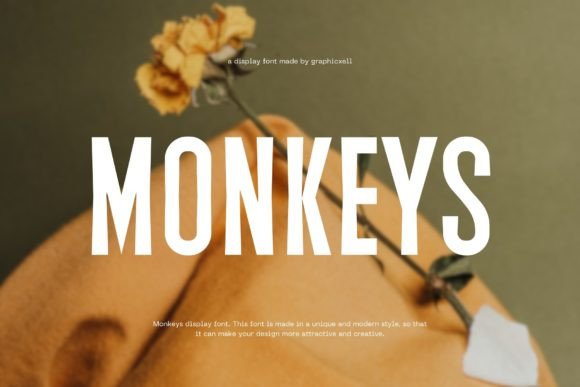
Step into a world where words dance gracefully, where letters intertwine in a symphony of elegance. Meet Monkeys Font, a display font that embodies the essence of sophistication and clarity. With its crisp and well-defined letterforms, Monkeys Font exudes a sleek and modern charm, captivating your audience with its undeniable allure.
Unleash the power of simplicity, as Monkeys Font's straightforward design lends itself effortlessly to a myriad of creative endeavors. Whether you're crafting captivating headlines, designing eye-catching titles, or expressing your thoughts in a striking manner, Monkeys Font is your trusted companion, guiding you towards design excellence.
Experience the versatility of a font that adapts seamlessly to your creative vision. From formal invitations to playful greeting cards, from elegant posters to vibrant social media graphics, Monkeys Font becomes an integral part of your artistic expression, adding a touch of class to every project you undertake.
Dive into the realm of card design, where Monkeys Font reigns supreme. Its clean lines and distinct character bring forth a sense of luxury and refinement, making your cards stand out from the ordinary. Let Monkeys Font elevate your designs, transforming them into masterpieces that leave a lasting impression.
Embrace the magic of Monkeys Font, the ultimate choice for designers seeking elegance, simplicity, and versatility. Its user-friendly nature makes it accessible to both seasoned professionals and aspiring creatives alike. Unleash your creativity and embark on a journey of design exploration, knowing that Monkeys Font will be your steadfast companion, guiding you towards greatness.